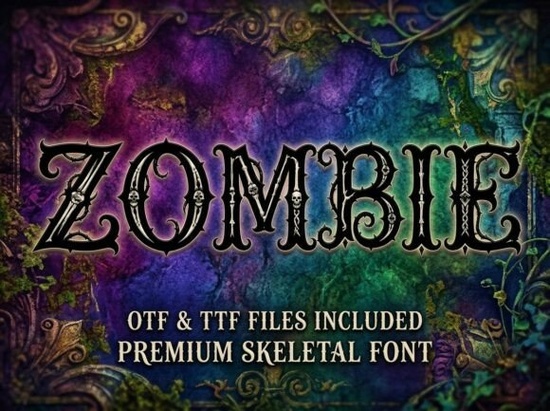
If you are working on a project that requires a serious, ominous tone, the right typeface makes a difference. Zombie Font brings that chilling atmosphere directly to your work with sharp outlines and high-contrast hollow spaces designed to stand out against complex backgrounds. Whether you are creating event posters or packaging for alternative brands, understanding how this skeletal display font interacts with textures is key to successful output. Many creators find that standard headers flatten when placed over watercolor smoke or busy graphics, but this specific style maintains clarity while adding depth.
How does this font handle detailed background textures?
The core strength of this design lies in its engineered legibility. When layered over rich visuals, the hollow interiors prevent visual clutter from consuming the letters. This allows the text to remain the focal point without requiring excessive outlining or drop shadows. It is particularly effective for dark fantasy novel covers or horror video game UI headings where the environment is as important as the message. Unlike thinner scripts, the weight ensures visibility even at smaller sizes or on low-resolution prints.
Can I use this for physical merchandise and apparel?
Is there a softer option for mixed-genre branding?
What other thematic styles complement this heavy aesthetic?
Understanding the versatility of display fonts is part of mastering a design workflow. By pairing aggressive skull-like characters with smoother backgrounds, you create tension that engages the viewer's eye. It stops people mid-scroll because the typography itself demands attention without screaming for it.